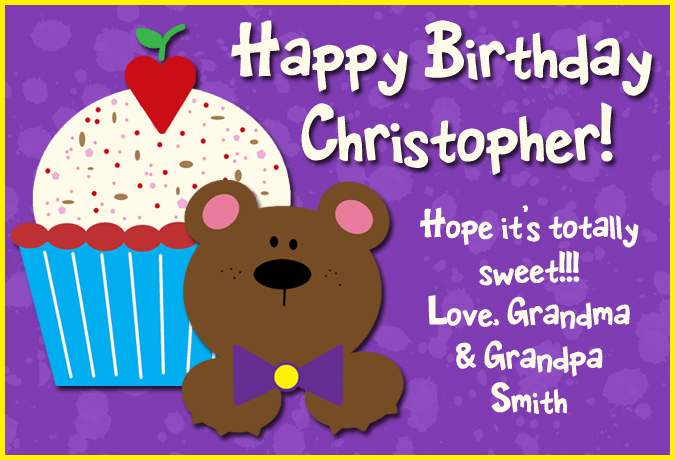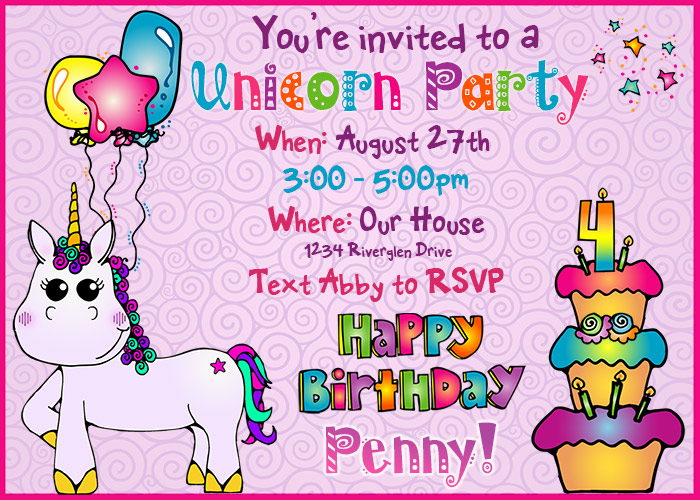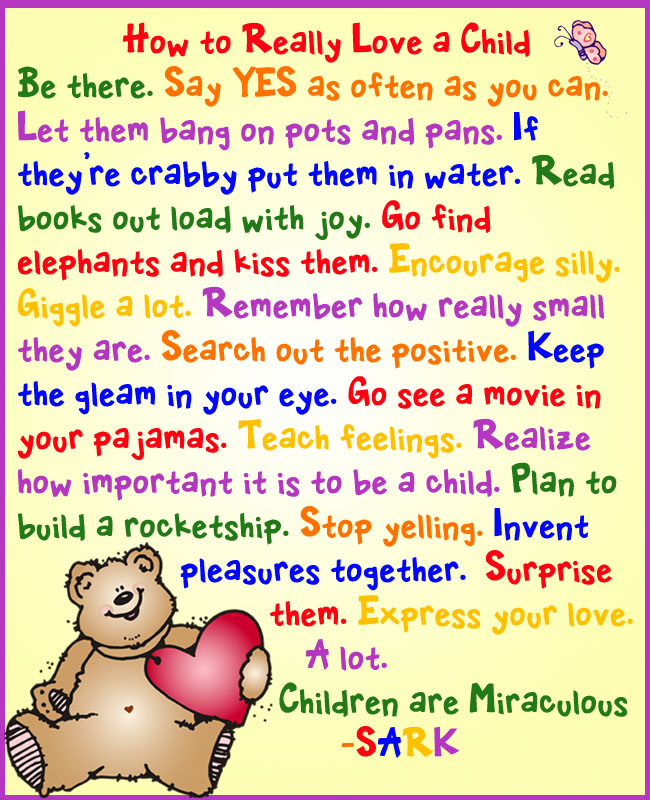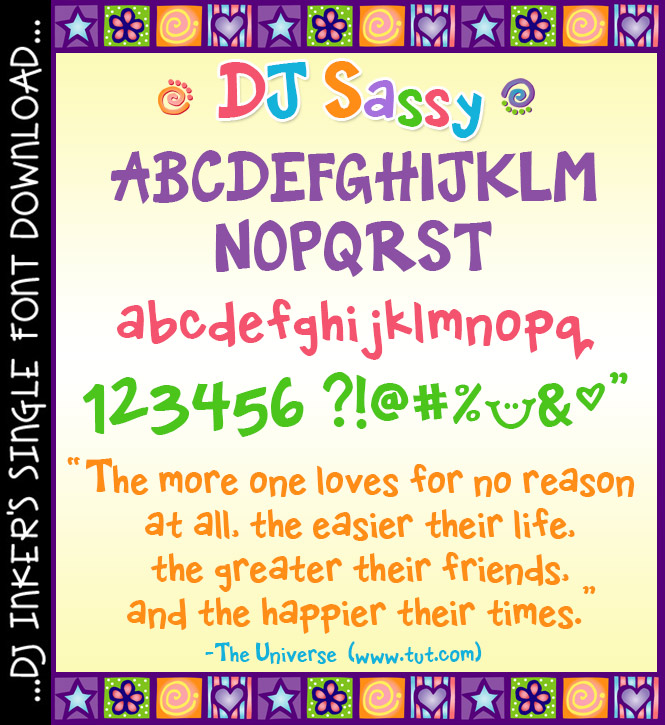
Add a bold, lively smile to your projects with our 'DJ Sassy' font download! This font is simple & strong, but full of personality... great for headlining your projects OR giving your text an energetic little pop! This font does nicely in just about any size or color. See below for lettering samples. (djdf32)